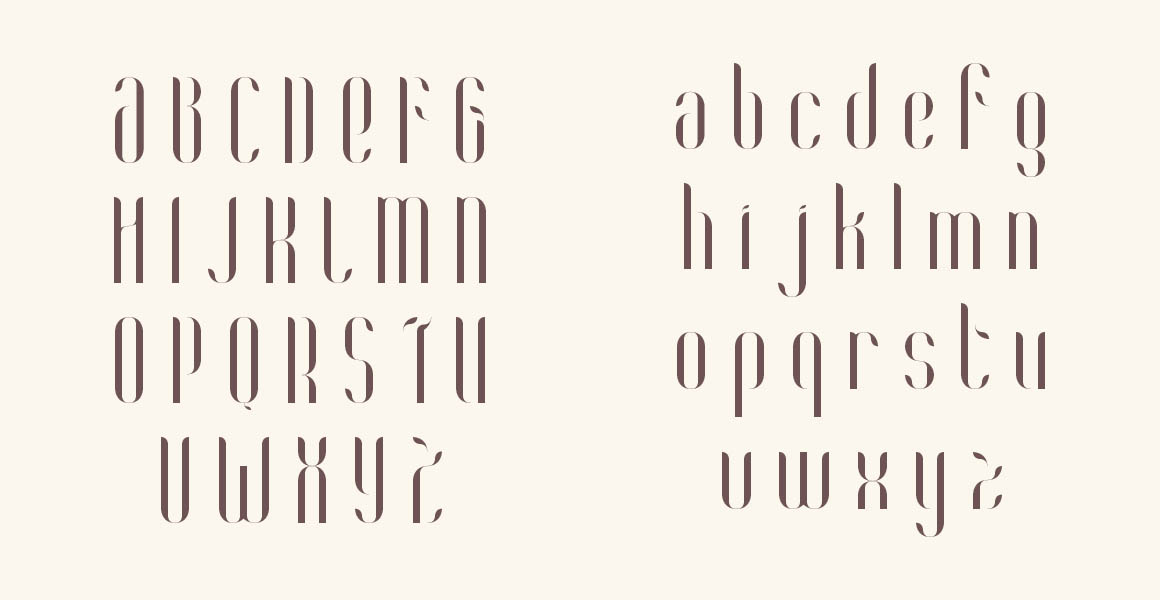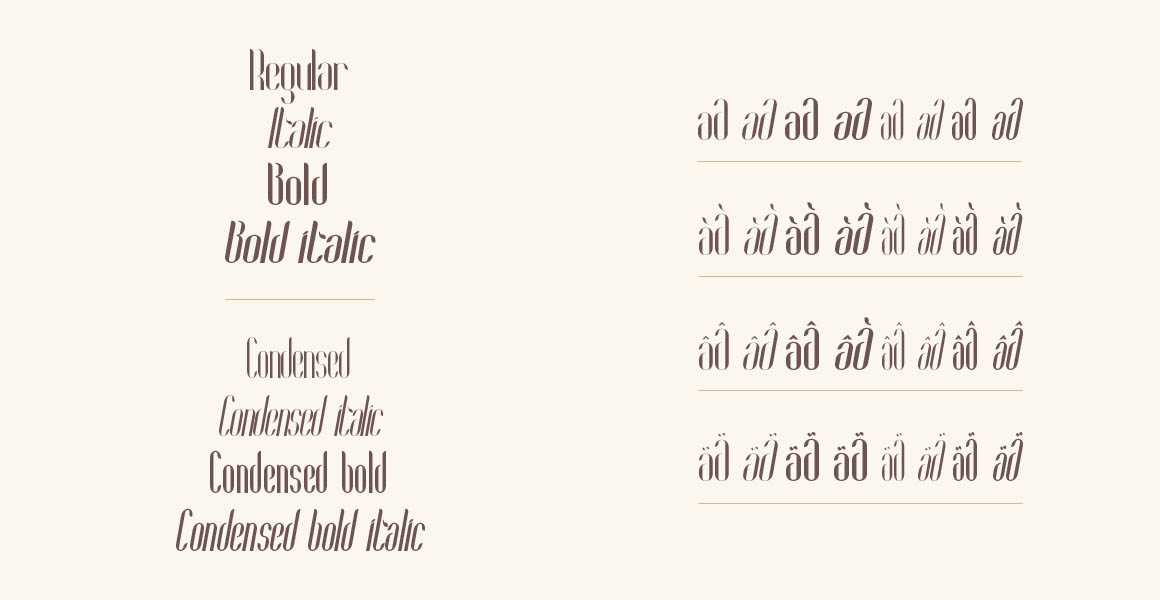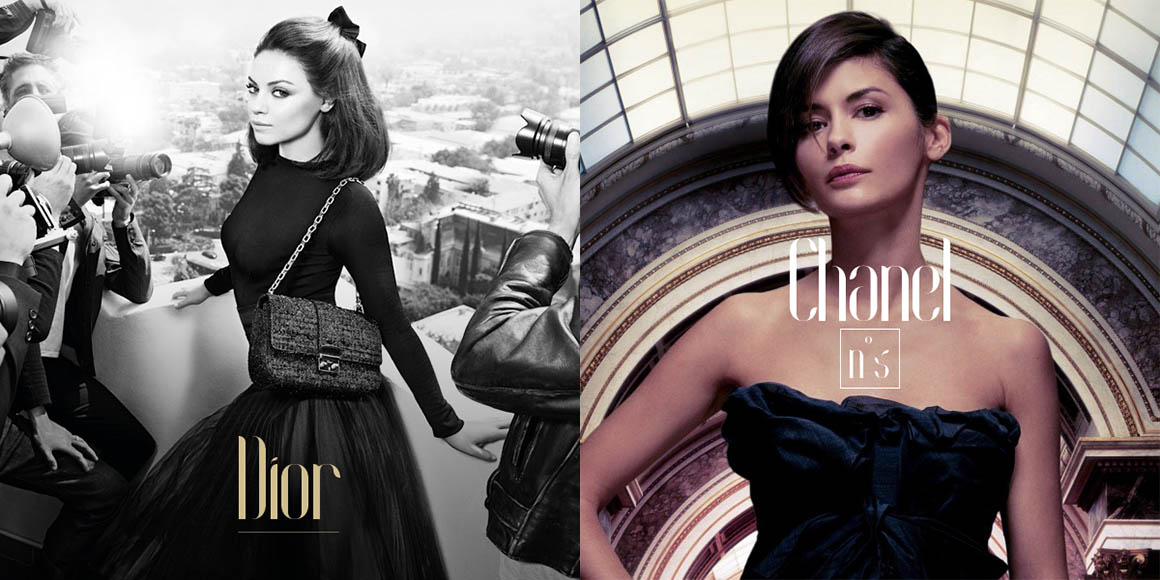
COCO – Free Font Family
This clean and modern sans serif font family is from Hendrick Rolandez. Great for your new creative projects. Download and enjoy 😉